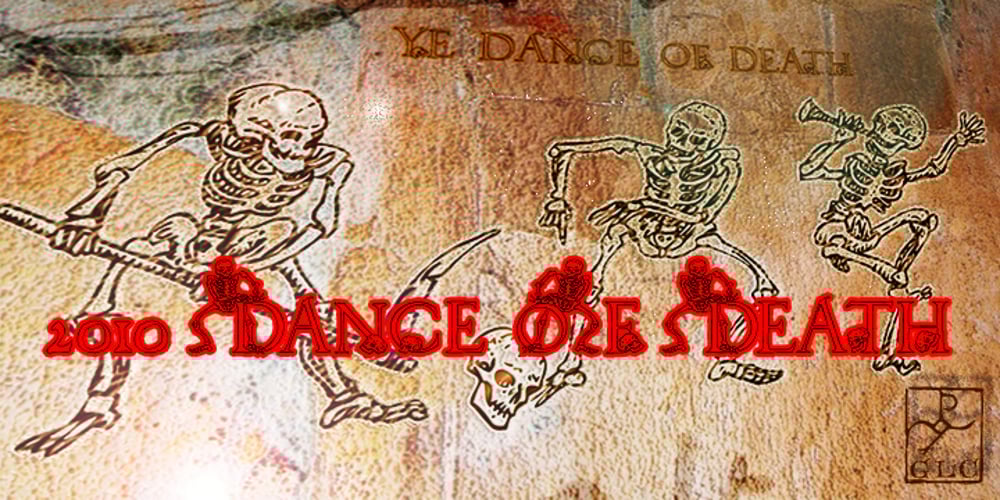
2010 Dance Of Death
2010 Dance Of Death font
2010 Dance Of Death Font Family was designed by Gilles Le Corre and published by GLC. 2010 Dance Of Death contains 1 styles and family package options. This font was inspired from the medieval Dances of Death patterns, as a modest tribute to the famous engraver Hans Holbein’s Alphabet of Death. We have tried to keep the spirit of the time — its sarcastic humor mixed with its objective and frozen realism. The font, consisting in two complete capital alphabets: Initials and caps, and a lot of separate figures added, is especially improved by strong enlargements, 72 pts and more, and has very good results when printed.